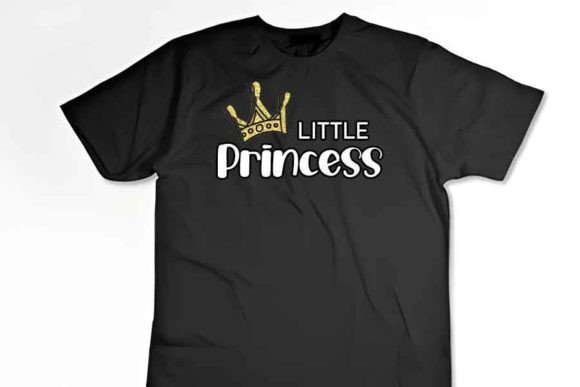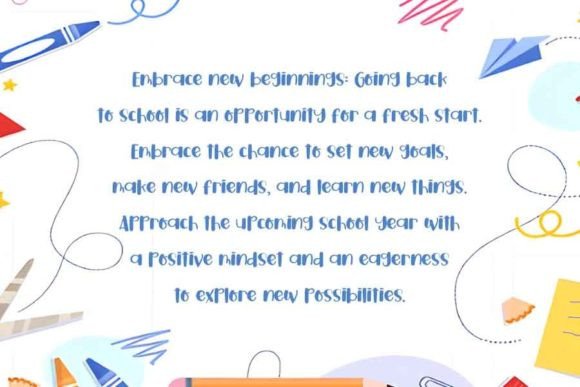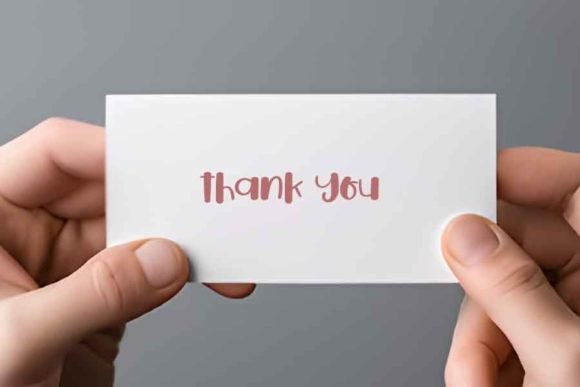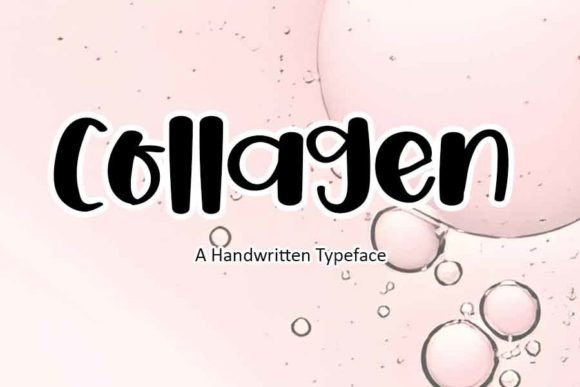
Introducing Collagen Font: The Ultimate Handwritten Font for Your Creative Projects
Are you a designer or crafter looking for a font that can add a touch of elegance and personality to your designs? Look no further than Collagen Font! This beautiful, handwritten font is perfect for a wide range of creative projects, from formal invitations to informal greeting cards. In this article, we’ll explore the features and benefits of Collagen Font, and show you how it can elevate your designs to the next level.
What is Collagen Font?
Collagen Font is a simple, joyful, and ravishing handwritten font that is designed to bring a touch of warmth and personality to your designs. With its adaptable style, this font is ideal for a wide range of formal or informal designs, making it perfect for designers and crafters who want to create unique and eye-catching projects.
Key Features of Collagen Font
- Handwritten style: Collagen Font has a beautiful, handwritten style that adds a touch of elegance and sophistication to your designs.
- Adaptable style: This font has an adaptable style that makes it perfect for a wide range of formal or informal designs.
- Personalized look: Collagen Font has a personalized look that makes it ideal for designs that require a unique and eye-catching style.
- Wide range of uses: This font is perfect for a wide range of creative projects, including wedding invitations, thank you cards, weddings, greeting cards, logos, and more.
Benefits of Using Collagen Font
So why should you choose Collagen Font for your creative projects? Here are just a few benefits of using this amazing font:
- Elegance and sophistication: Collagen Font adds a touch of elegance and sophistication to your designs, making them perfect for formal events and occasions.
- Personality and uniqueness: This font has a unique and personalized style that makes your designs stand out from the crowd.
- Versatility: Collagen Font is perfect for a wide range of creative projects, making it a versatile addition to your font collection.
- Easy to use: This font is easy to use and can be easily integrated into your designs, making it perfect for designers and crafters of all levels.
Creative Projects Perfect for Collagen Font
So what types of creative projects are perfect for Collagen Font? Here are a few ideas to get you started:
- Wedding invitations: Collagen Font is perfect for wedding invitations, adding a touch of elegance and sophistication to your designs.
- Thank you cards: This font is also great for thank you cards, allowing you to add a personal touch to your designs.
- Greeting cards: Collagen Font is perfect for greeting cards, making them more personalized and eye-catching.
- Logos: This font can also be used to create unique and eye-catching logos that reflect your brand’s personality.
| Font Name | Collagen Font |
| Author | Emily Store |
In conclusion, Collagen Font is a beautiful, handwritten font that is perfect for designers and crafters who want to add a touch of elegance and personality to their designs. With its adaptable style, personalized look, and wide range of uses, this font is a versatile addition to any font collection. Whether you’re creating wedding invitations, thank you cards, greeting cards, or logos, Collagen Font is the perfect choice. So why wait? Download Collagen Font today and start creating stunning designs that showcase your creativity and style!